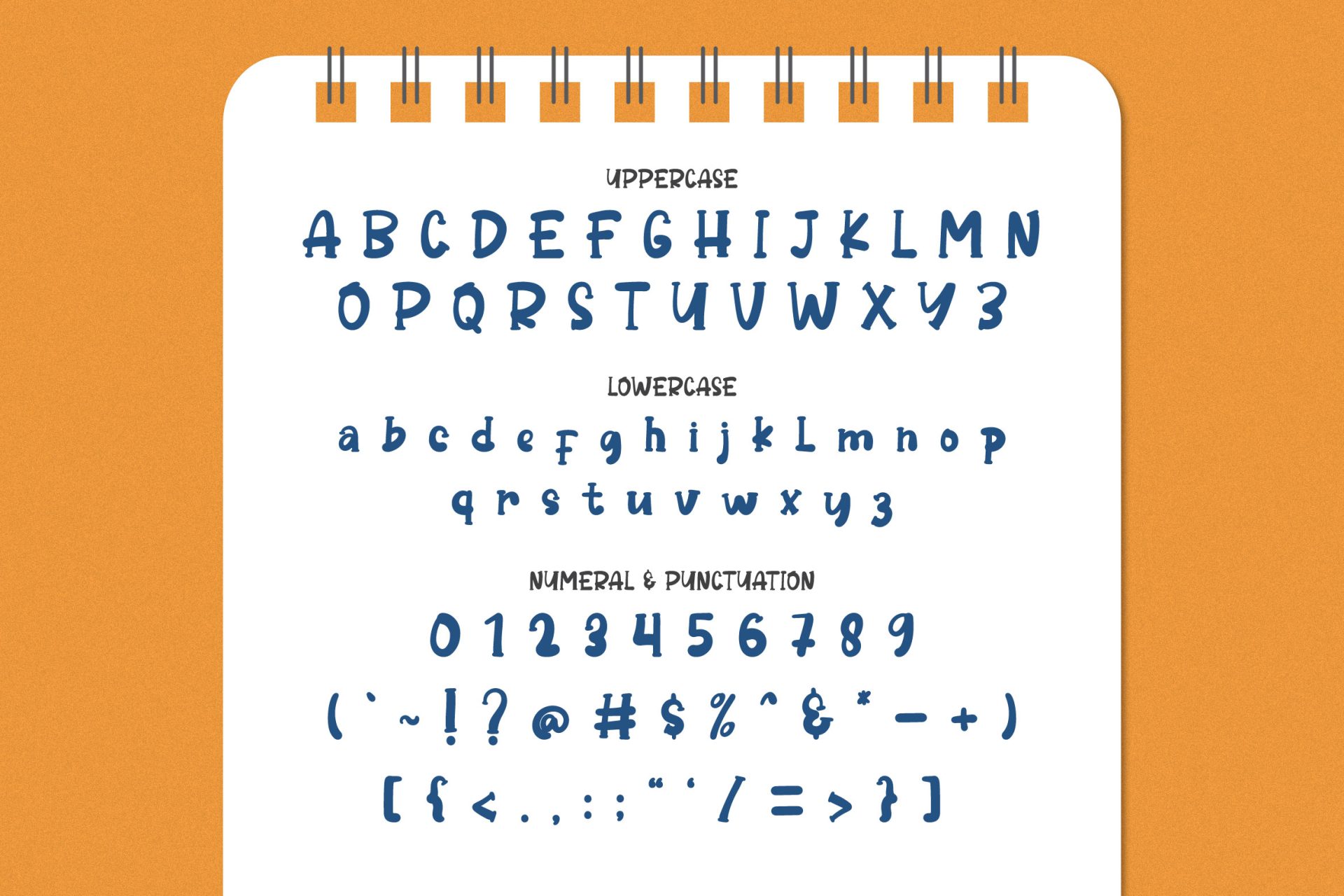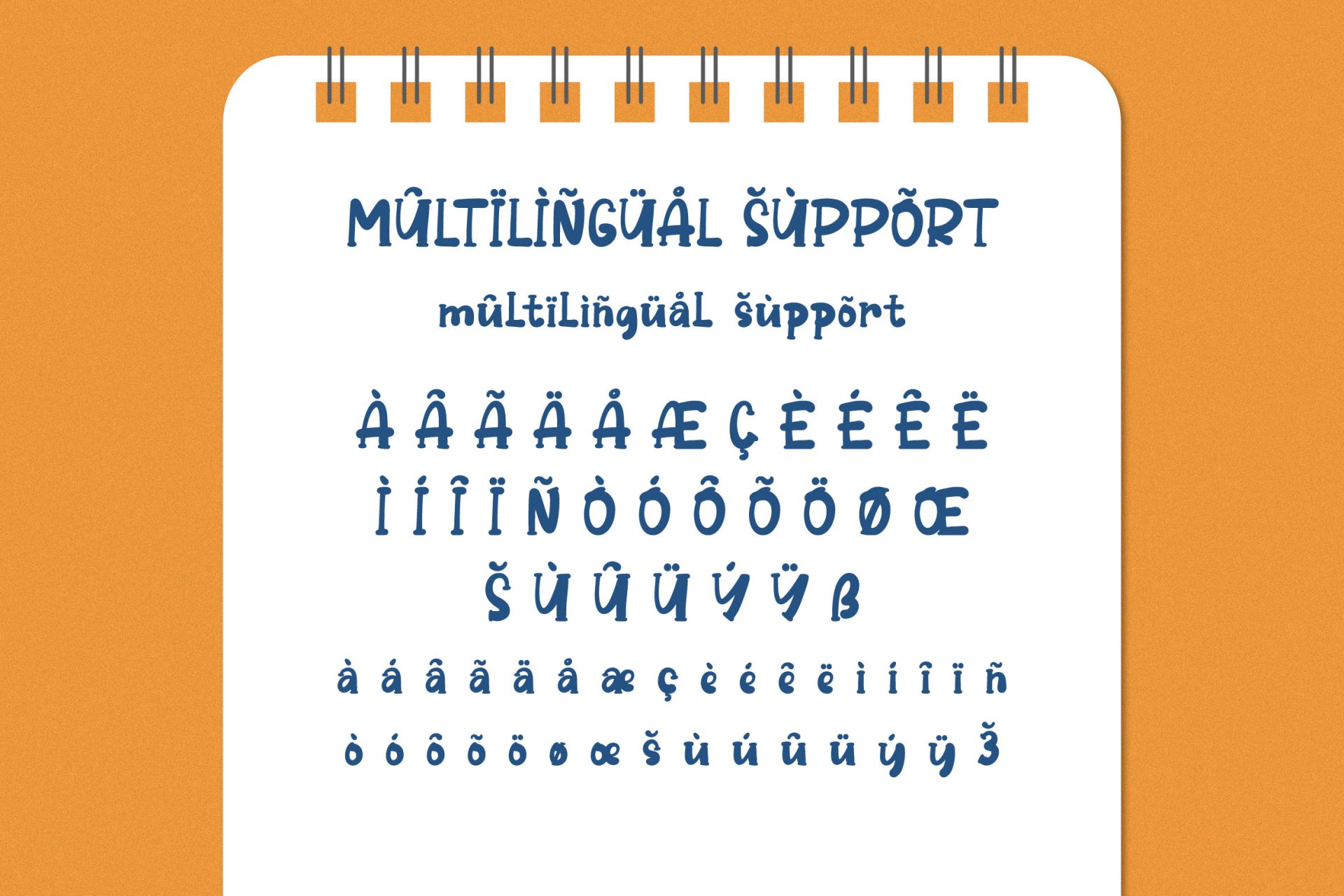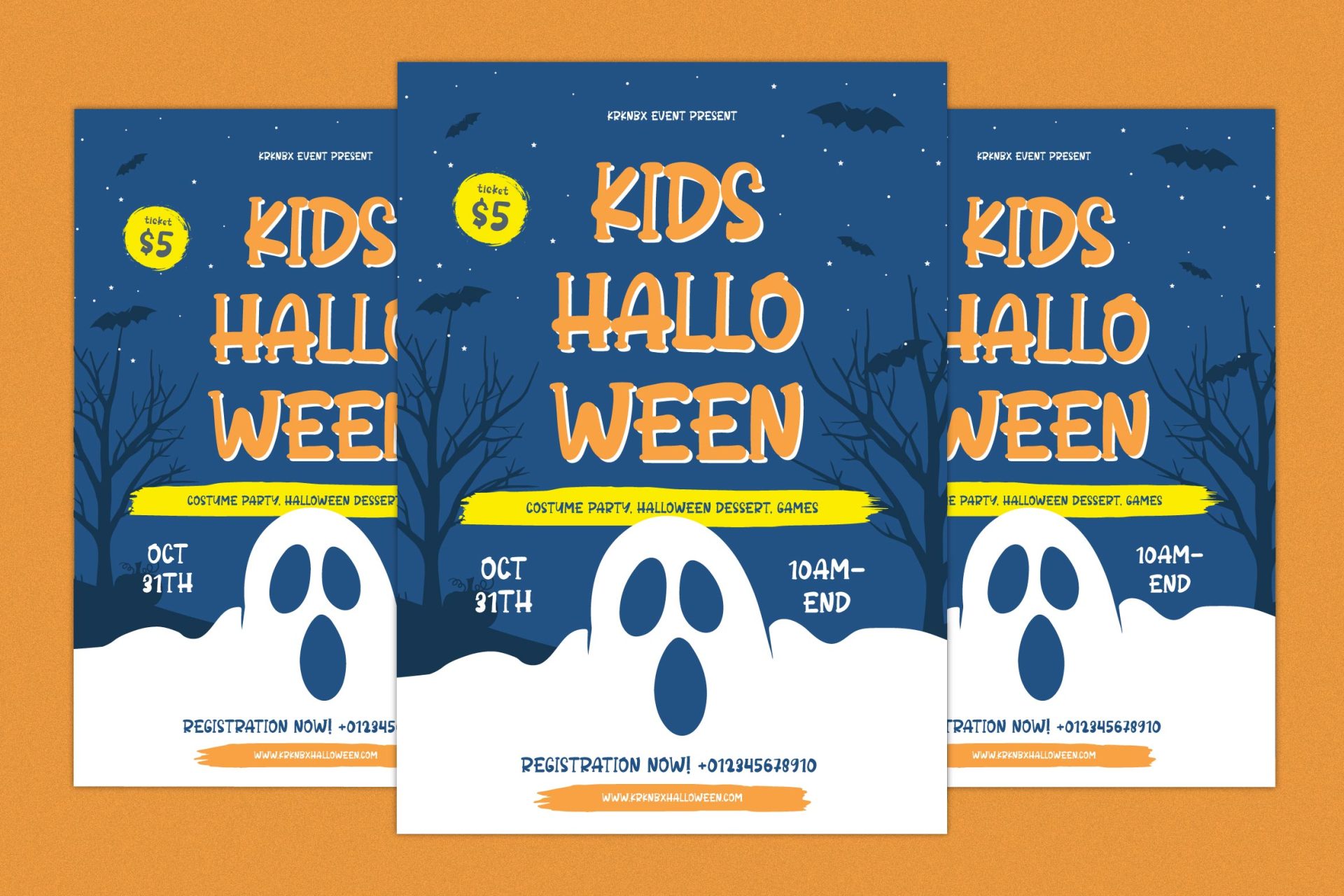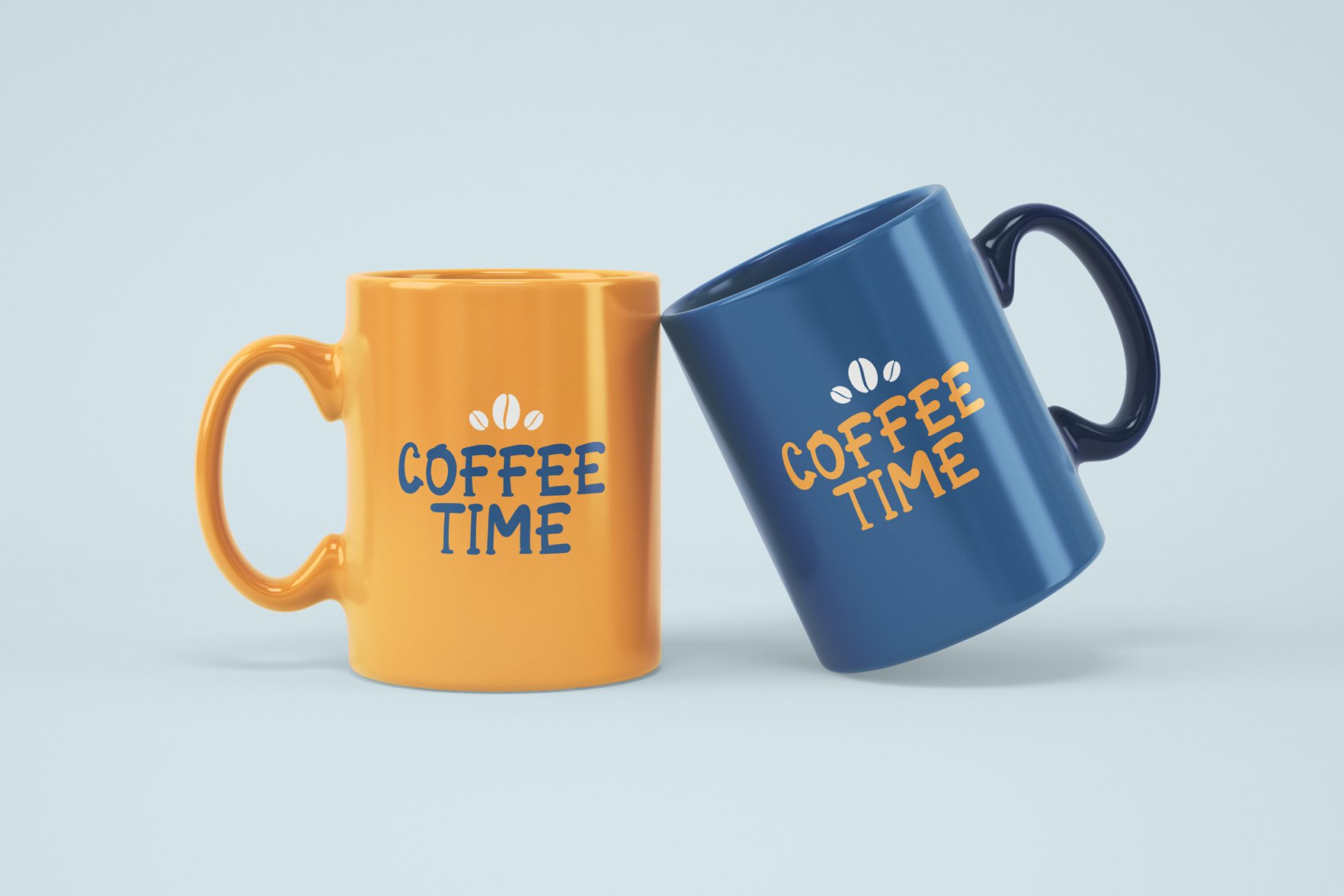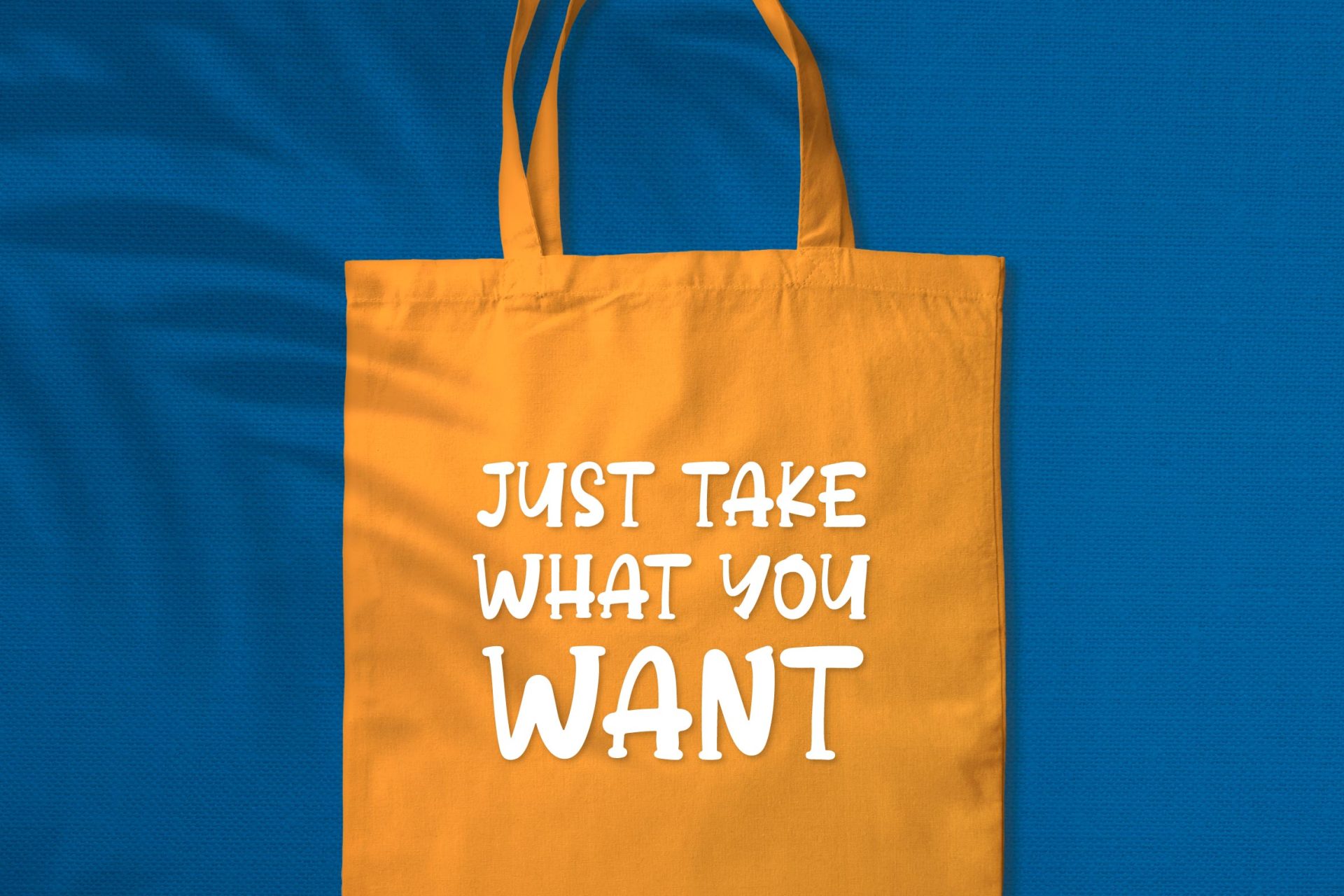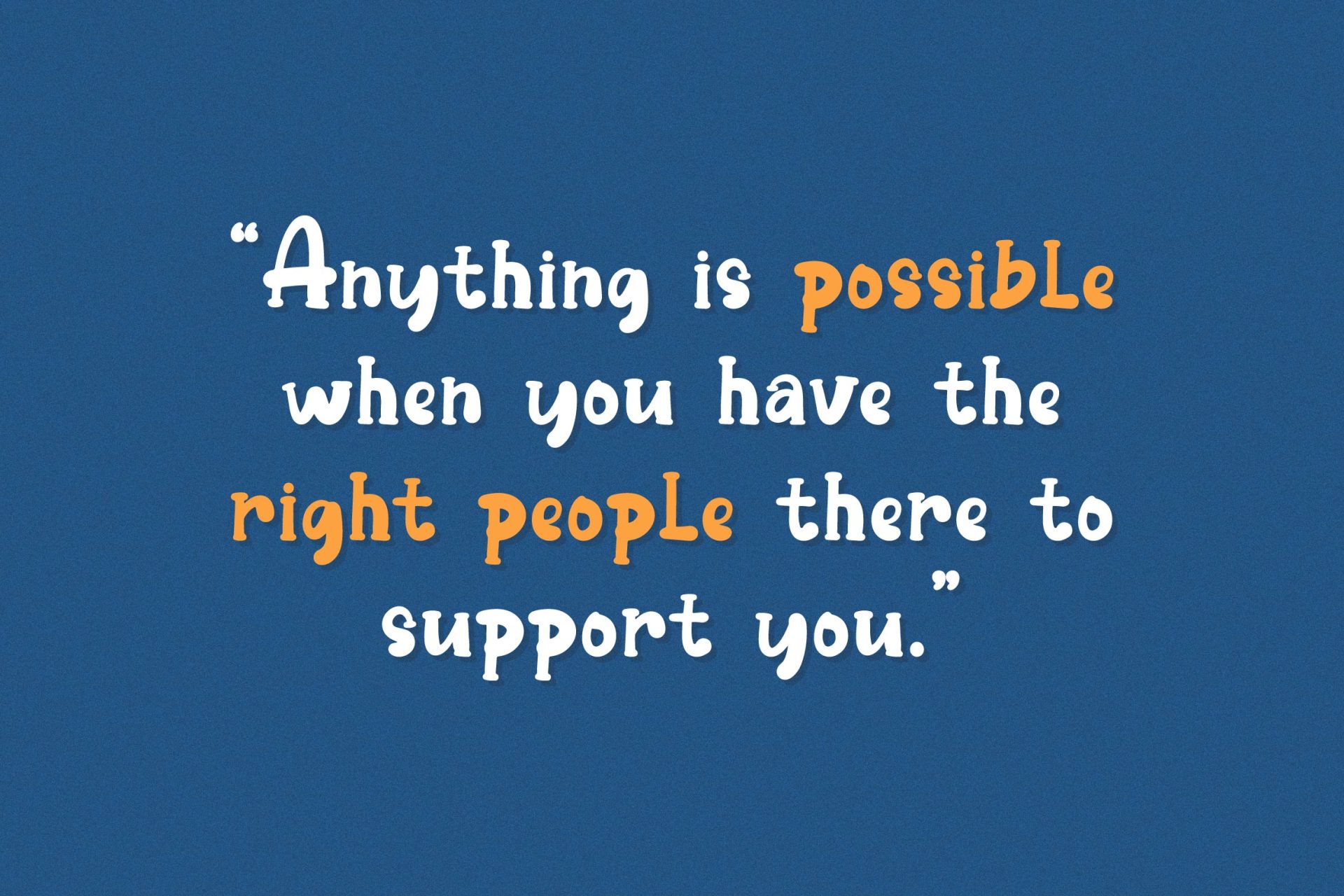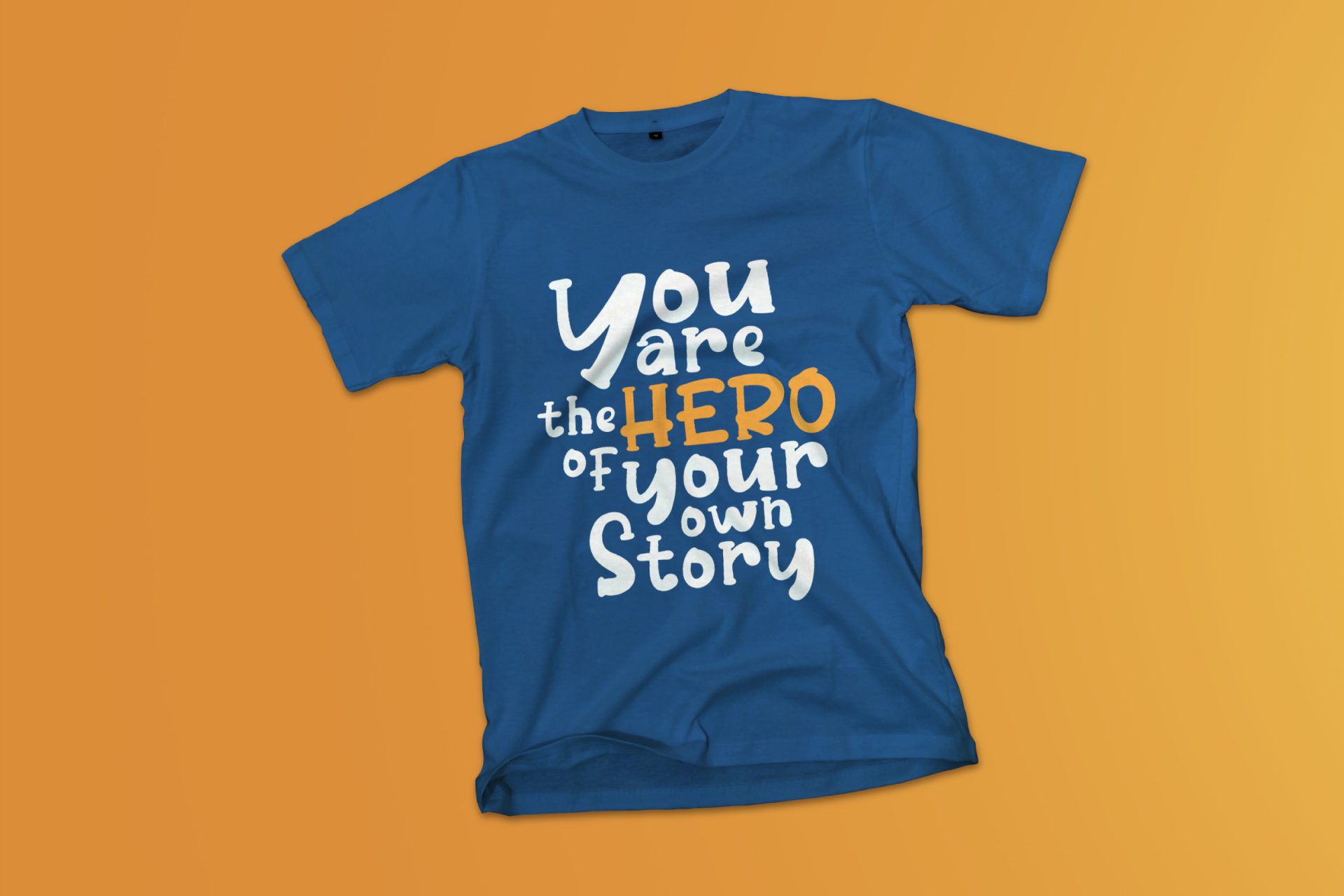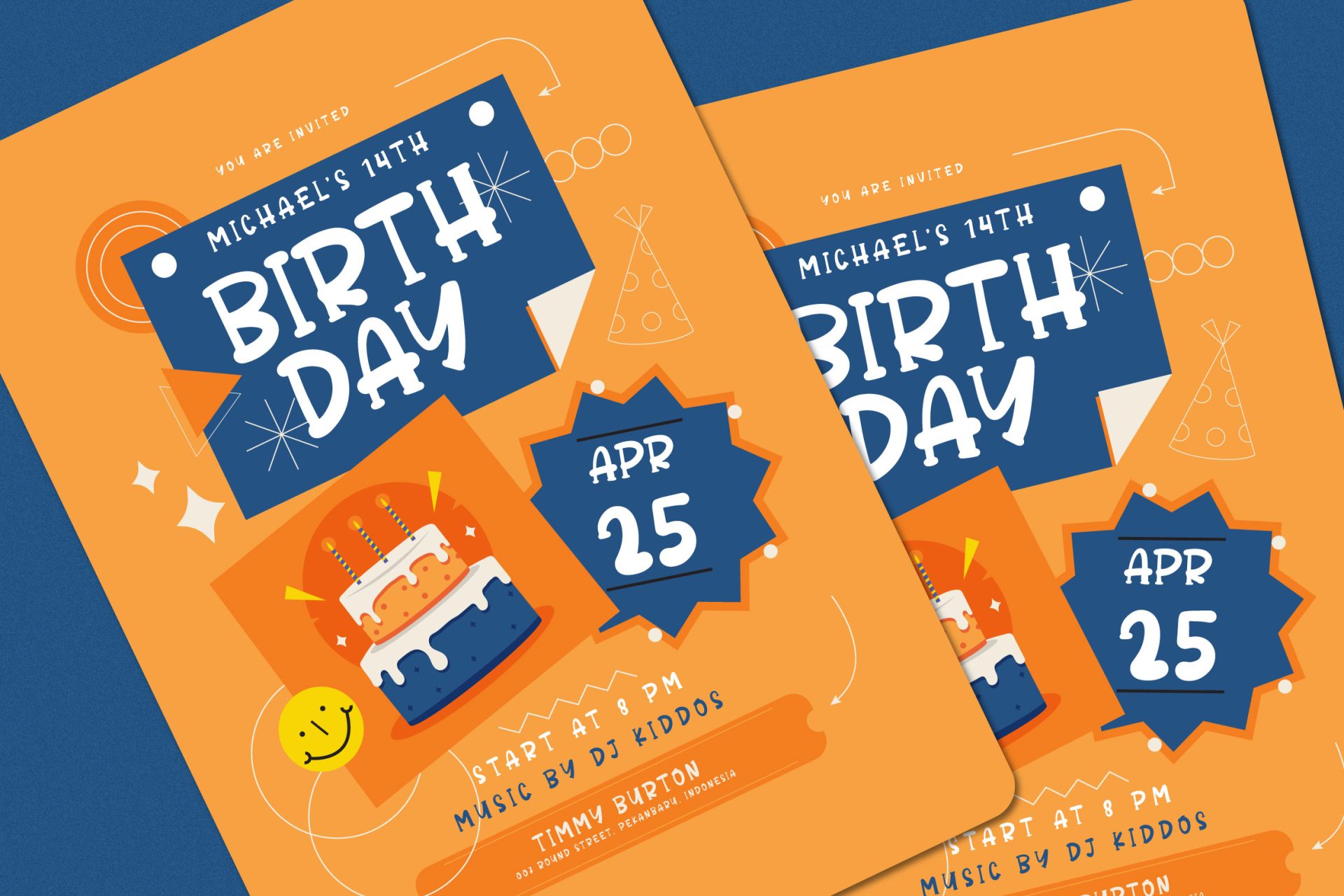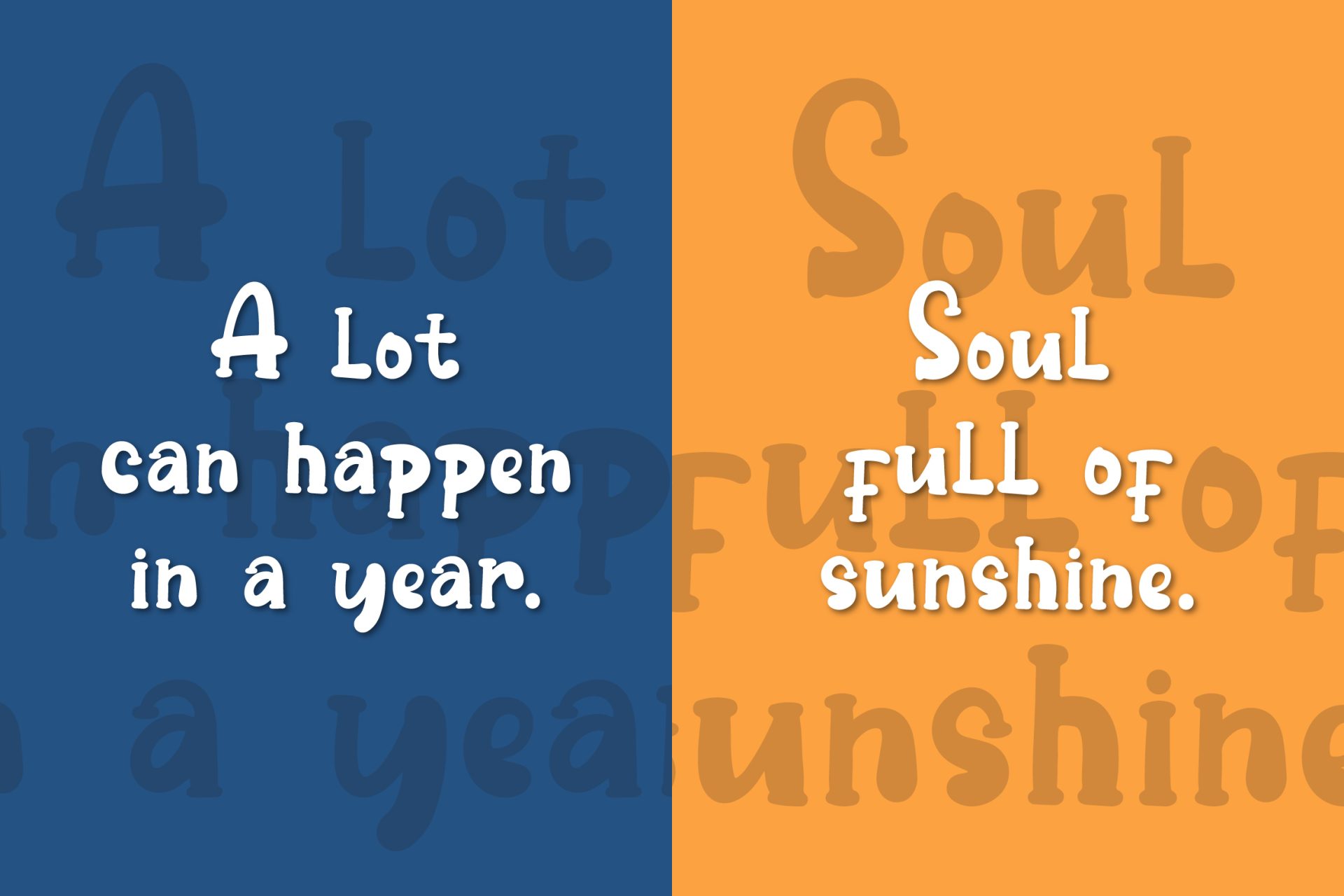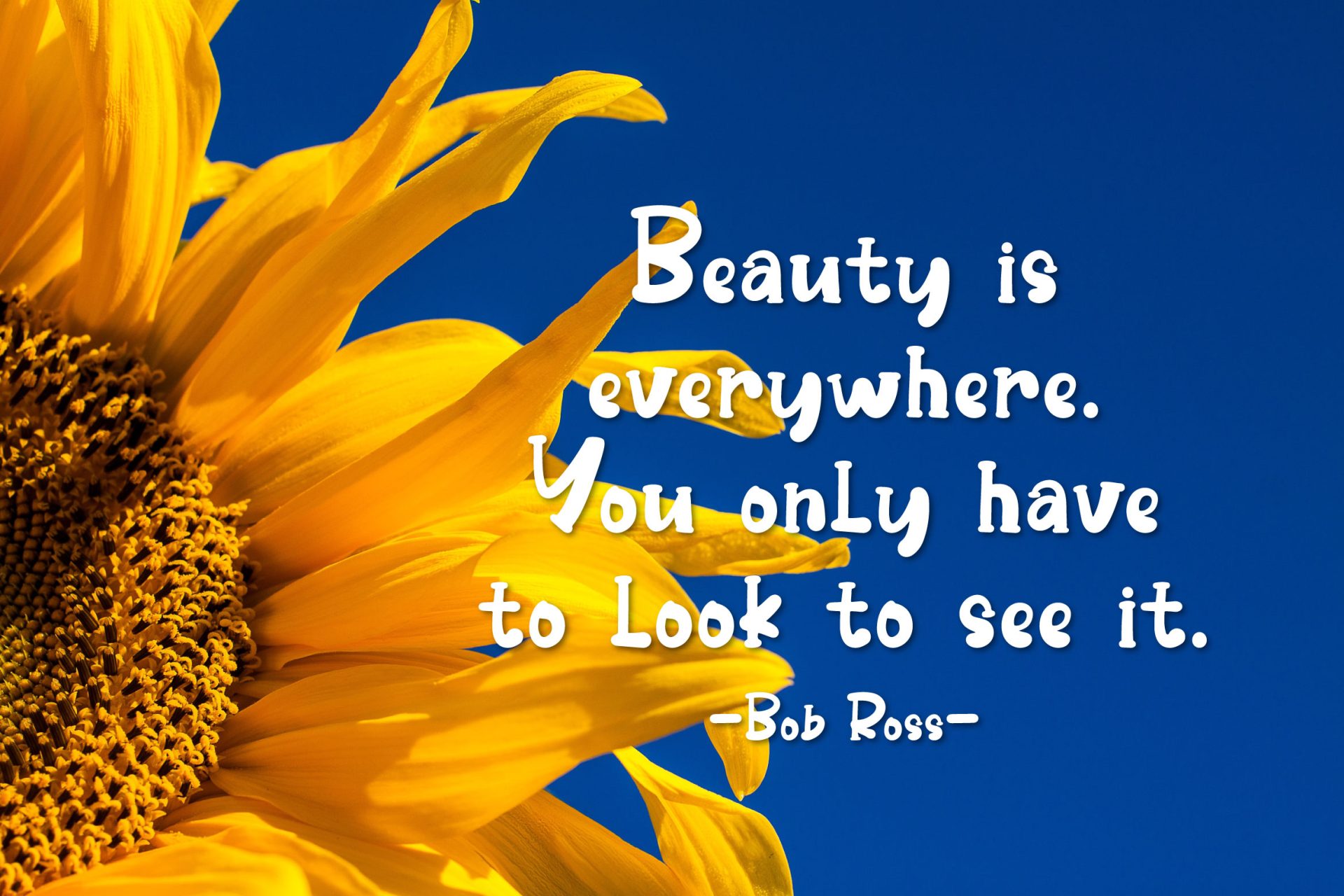
Aliestar – Handwritten Font
Introducing Aliestar – Handwritten Font by KrakenBox
Aliestar is a cute and playful handwritten font. Use this font to add that special cool touch to any design idea you can think of!
Aliestar is best for:
• logos, branding, & Signatures.
• Flyers, Album cover, Magazine, & Advertisements.
• Website design , design blogs, & fashion.
• Quote graphics for social media.
• and also it works great for other projects.
• Character Set (Uppercase and Lowercase)
• Numerals and Punctuation (OpenType Standard)
• Accents (Multilingual characters)